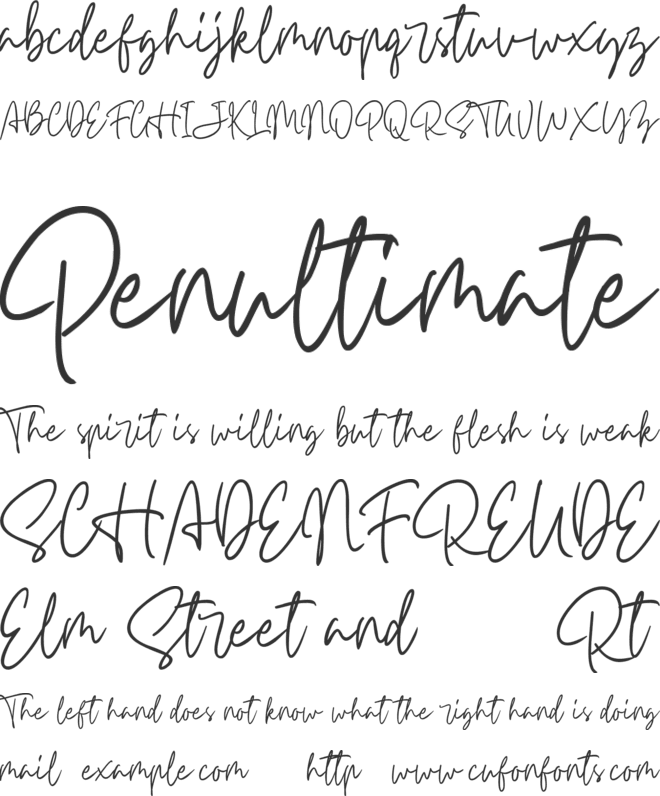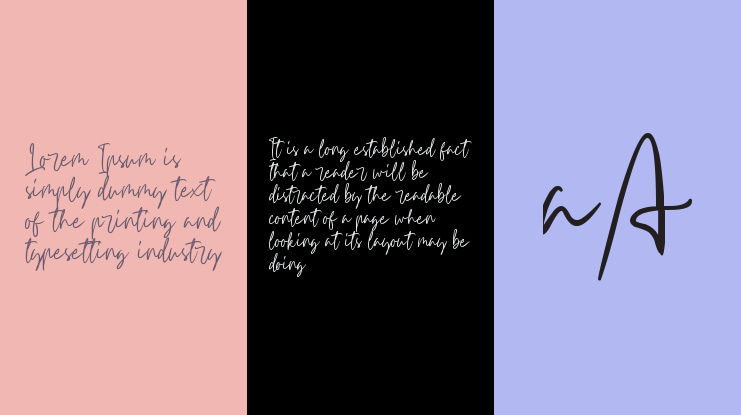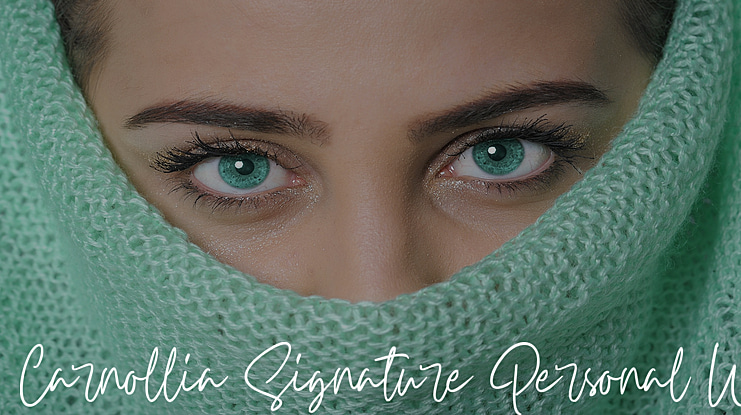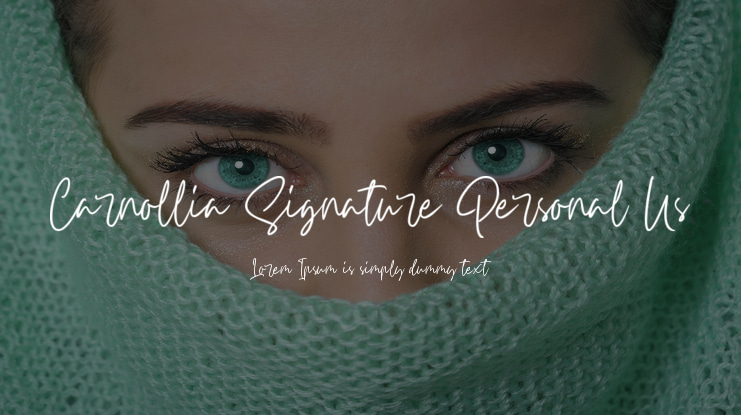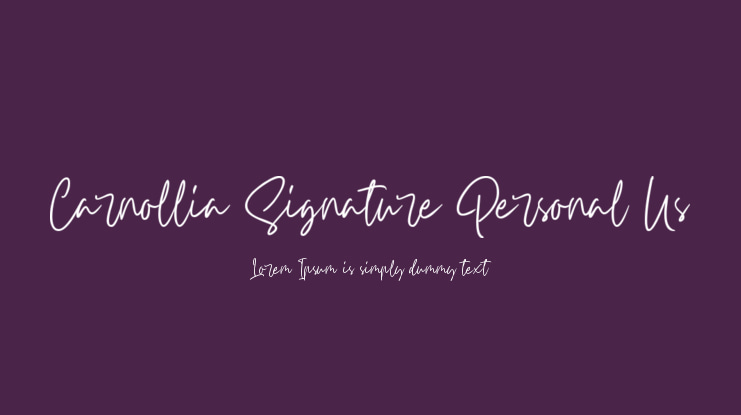
Carnollia Signature Personal Us Font
Introducing our new product, "Carnollia Signature"- a stylish signature font with modern visual and natural handwriting impression
Carnollia signature is very fresh with unique handwriting style. And it's perfectly suited to logo, poster, wedding details, postcard, branding, apparel, tagline, quotes, and much more --- For Commercial use license please click link below https://crmrkt.com/pqGmqO